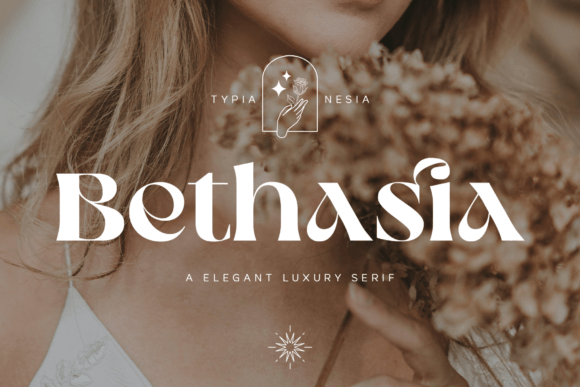
Introducing Bethasia Font, the epitome of modern elegance and classic beauty. Crafted with meticulous attention to detail by the talented Typia Nesia, this serif font is a game-changer for all your creative endeavors. Whether you're designing wedding invitations, curating a brand identity, or working on editorial projects, Bethasia Font is your ultimate companion.
With its refined and sophisticated design, Bethasia Font effortlessly captures the essence of timeless beauty. Its graceful curves and contrasting lines bring a touch of elegance to every letter, making your text come alive with a sense of style and grace. This font is a true masterpiece that will elevate any project, leaving a lasting impression on your audience.
As the best font for flower shops, Bethasia Font adds a unique charm to your floral-inspired designs. Its intricate details and graceful strokes mimic the delicate petals of a flower, creating a visual symphony that resonates with your target audience. Whether you're designing a logo for a florist or creating promotional materials for a botanical event, Bethasia Font will make your message bloom with creativity and allure.
But Bethasia Font is not just limited to the floral world. Its versatility knows no bounds. From sophisticated wedding invitations to high-end branding projects, this font adapts effortlessly to any style or concept, ensuring that your message is delivered with utmost impact. Let the beauty of Bethasia Font captivate your audience, leaving them in awe of your impeccable taste and attention to detail.
Embrace the power of Bethasia Font today and witness the transformation it brings to your projects. With its clean and refined design, this font is a breath of fresh air in a sea of mediocrity. Stand out from the crowd, make a statement, and leave an indelible mark on your audience's hearts. Bethasia Font is not just a font; it's a testament to your creativity and passion.